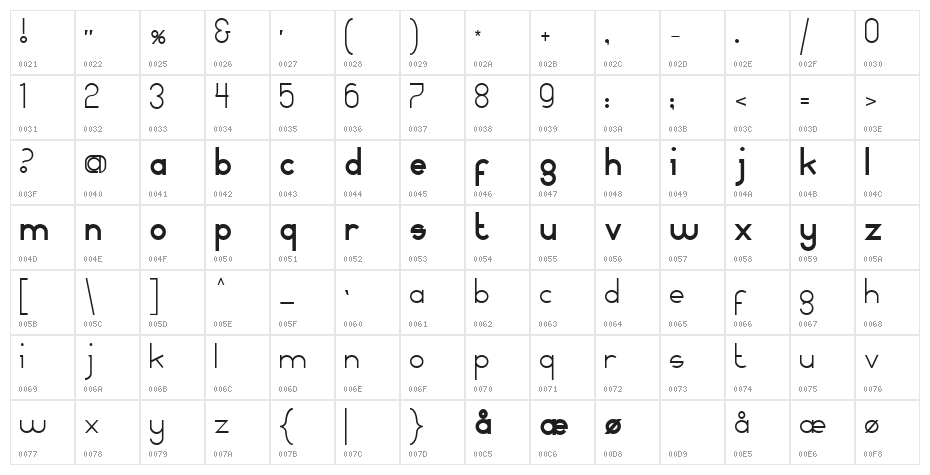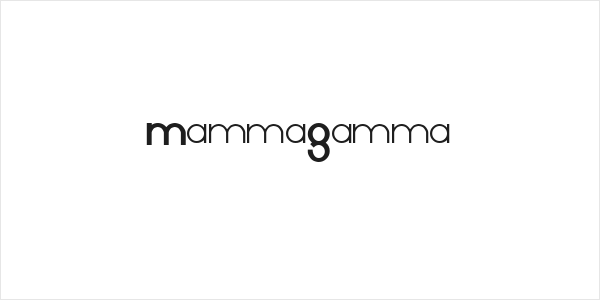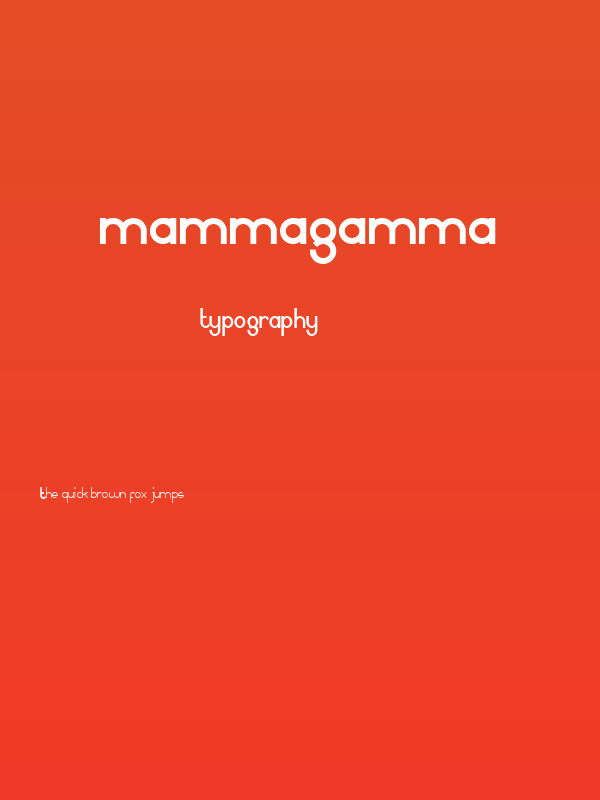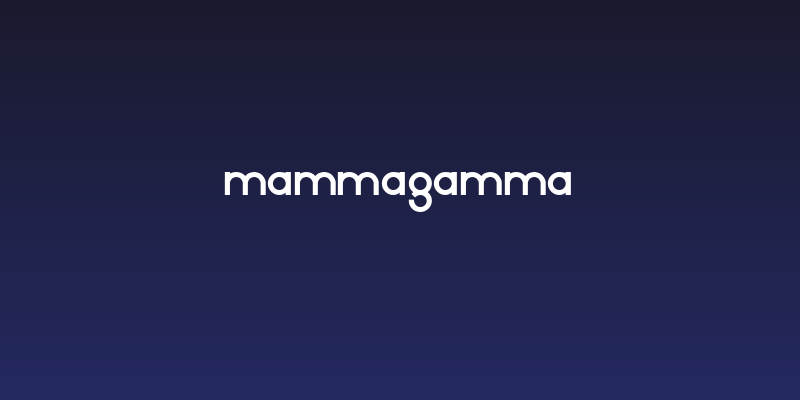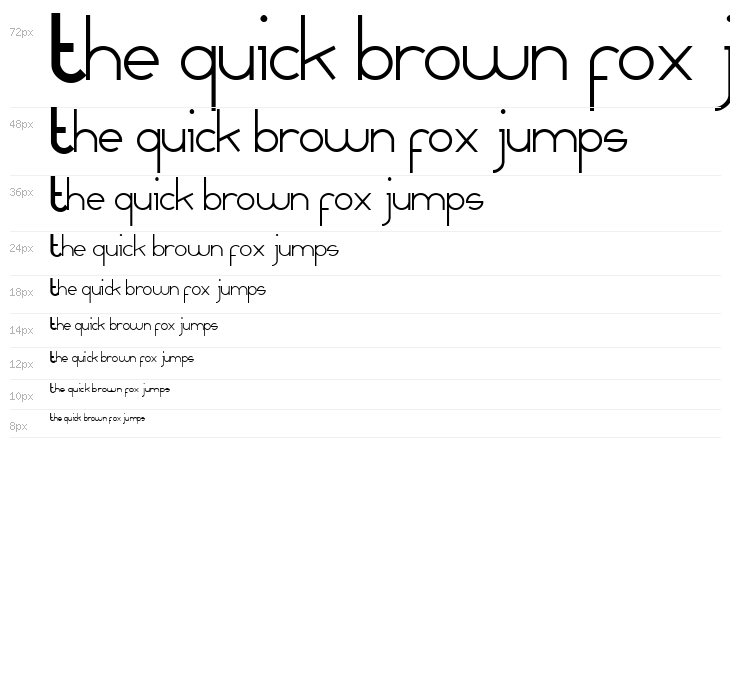
MammaGamma Font
MammaGamma Description
This font features a modern and geometric design with a clean, minimalist aesthetic. The characters are constructed with consistent stroke widths, giving it a uniform appearance. The rounded edges and smooth curves provide a friendly and approachable feel, while the overall structure maintains a sense of precision and clarity. The uppercase and lowercase letters are well-balanced, and the numerals are easily distinguishable. Special characters are included, enhancing its versatility for various applications.
MAMMAGAMMA UPPERCASE
MAMMAGAMMA LOWERCASE
MAMMAGAMMA OTHER CHARS